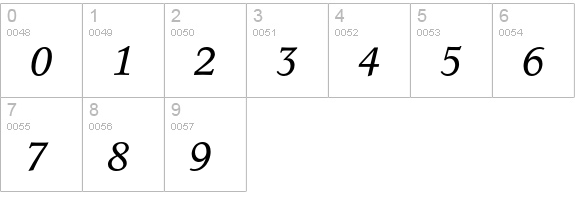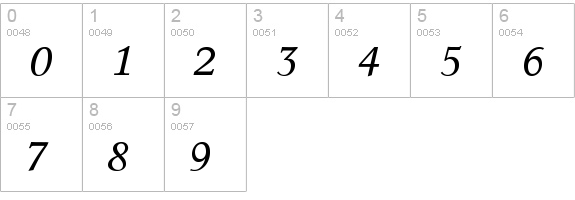
Concorde R Font Details
Concorde R font exudes elegance and sophistication with its sleek and modern design. This versatile typeface is perfect for a wide range of design projects, from branding to editorial design. The clean lines and sharp angles of Concorde R make it a standout choice for creating a polished and professional look. Whether you're working on a website, a brochure, or a logo, this font will elevate your design to the next level. The best part? Concorde R is available for free download at FontsMarket.com. You can easily access this stunning font and use it in your projects without any cost. Don't miss out on the opportunity to enhance your designs with the timeless beauty of Concorde R. Download it now and let your creativity shine!